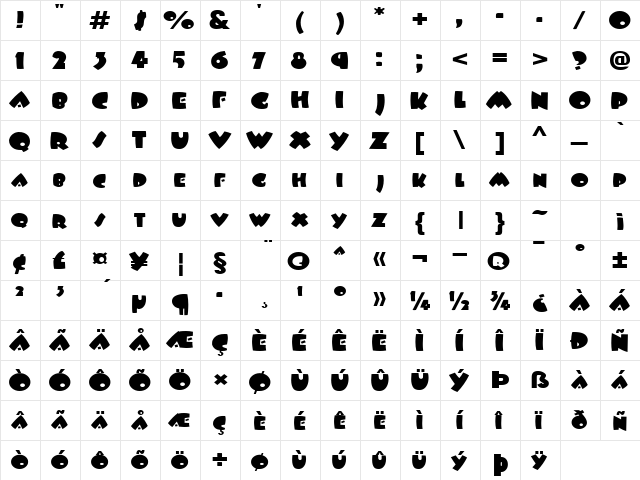
WampumExtended Normal
Design Context for WampumExtended Typeface
WampumExtended is a composed and adaptable typeface that performs quietly and consistently across a wide range of design contexts.